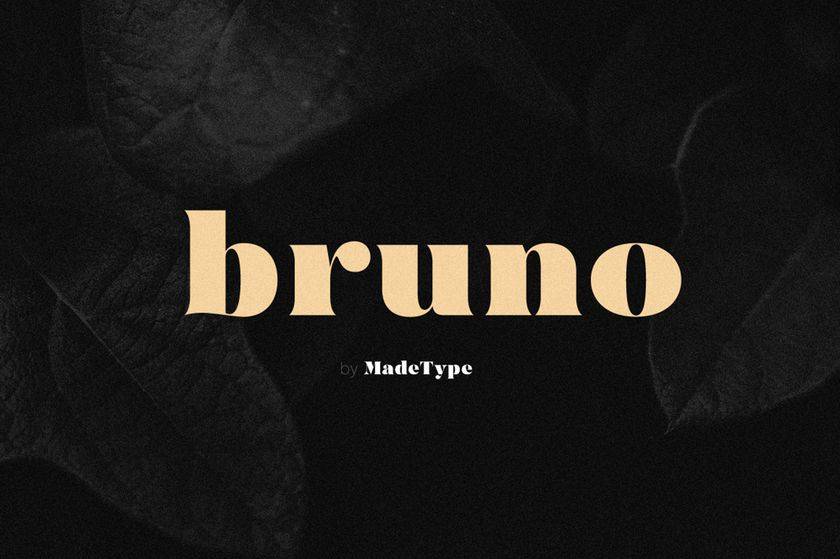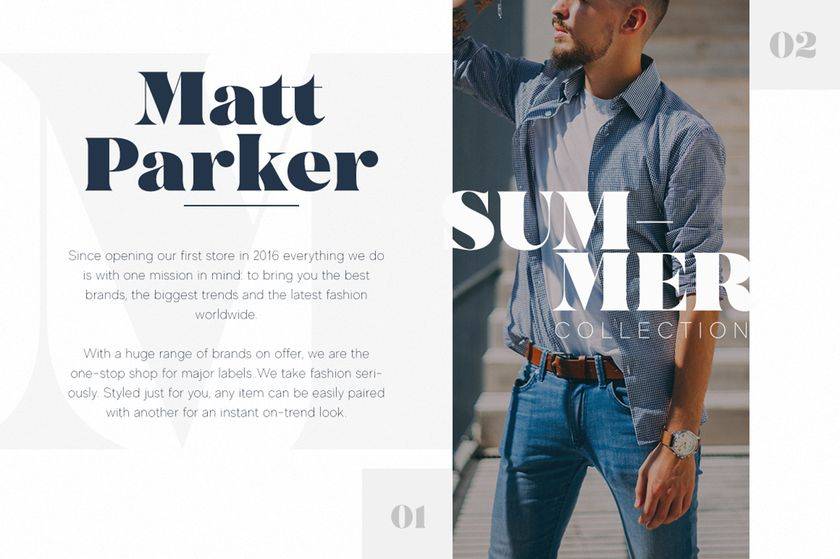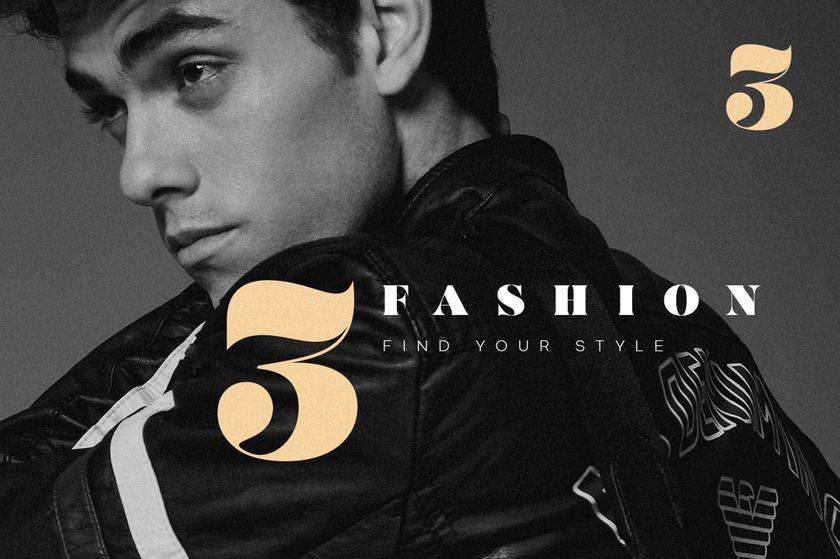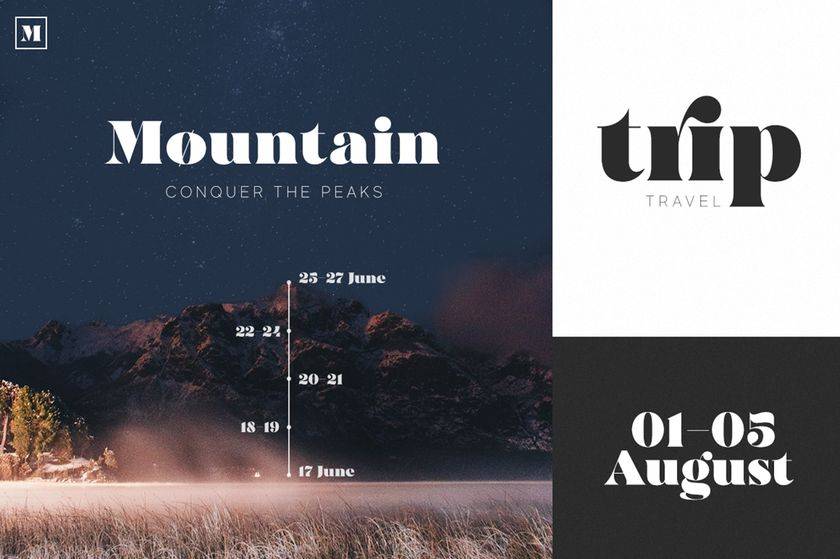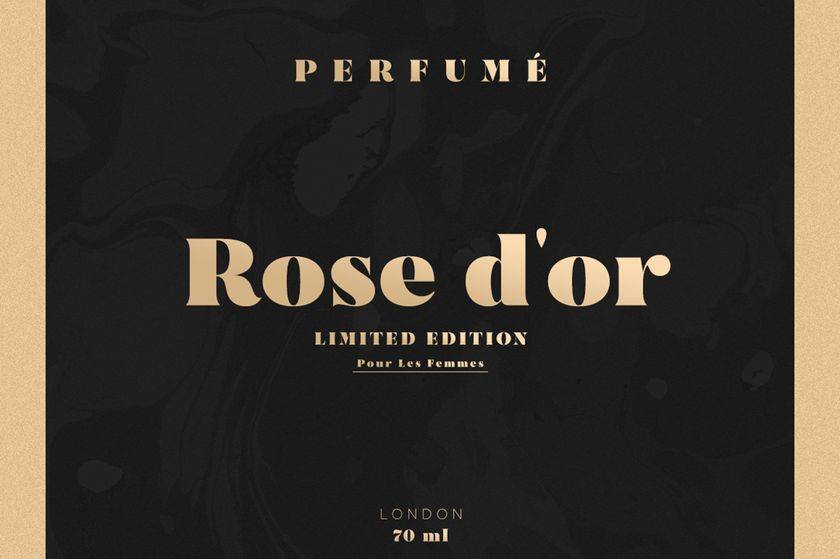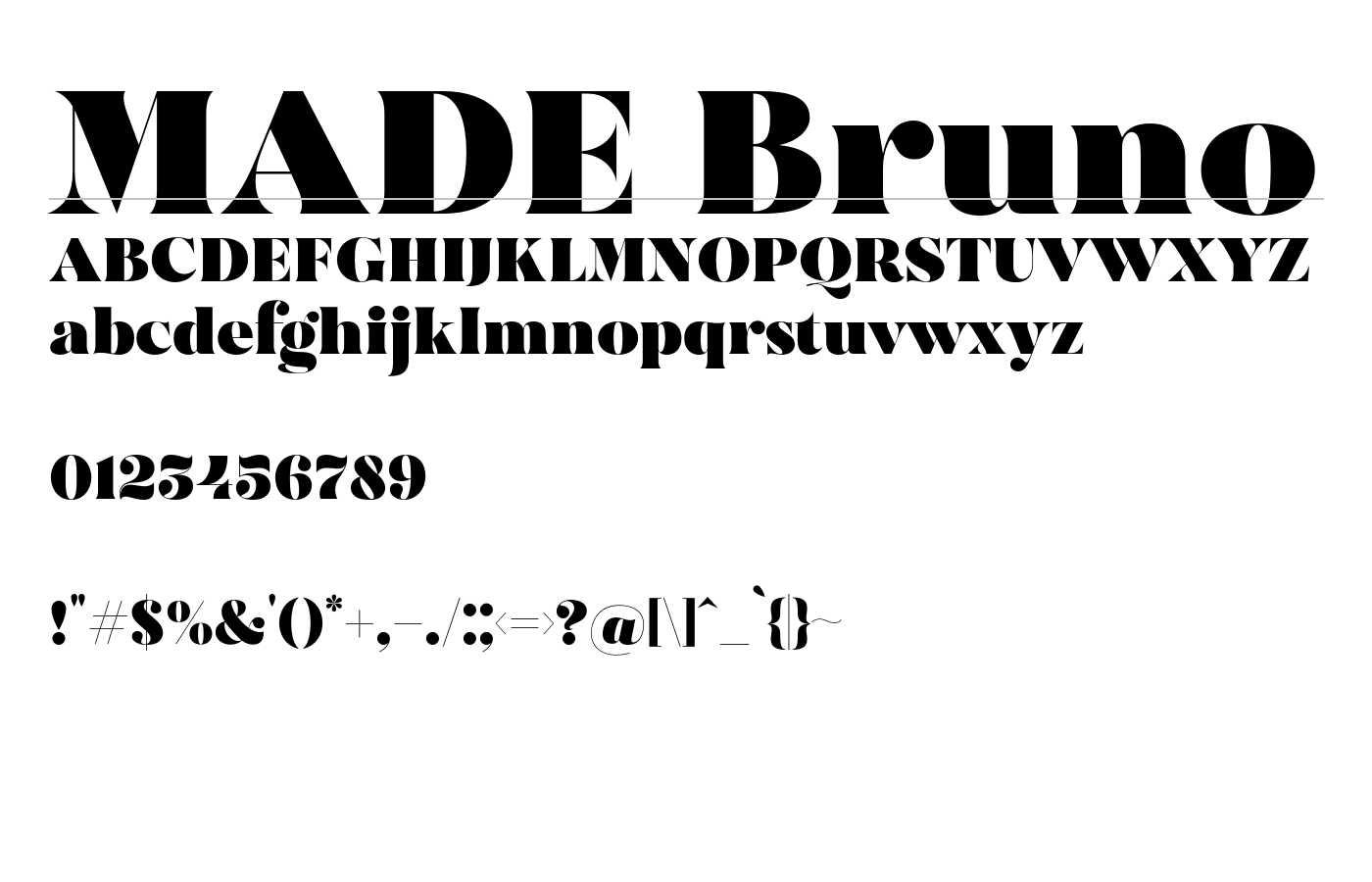
MADE Bruno is a bold serif font with strong contrast between thick and thin strokes, giving it a dramatic and elegant appearance. Its thick, bracketed serifs and stylized details like the tapered leg of the "R" and the curved tail of the "Q" make it perfect for high-impact headlines and luxury branding. This font works beautifully in editorial designs, logos, and packaging where a sophisticated yet assertive look is desired.
MADE Bruno Font
About MADE Bruno Font
| Font family | MADE Bruno Font |
| Release date | 2018-04-13 |
| Designer | MadeType |